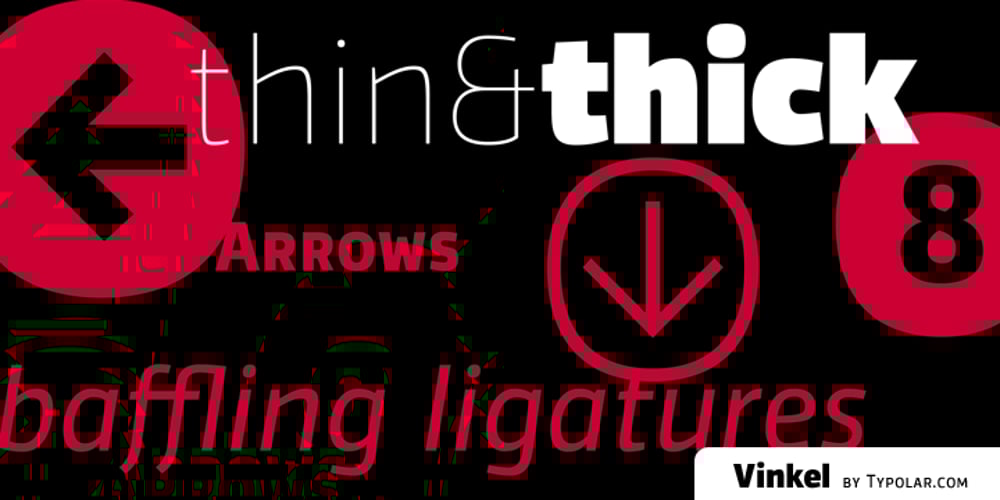
Vinkel Font Family was designed by Saku Heinänen and published by Typolar. Vinkel contains 16 styles and family package options. Composed, clean and slightly angular, as its name says. It’s organic, warm and round in the right places too. A sanserif typeface family Vinkel is a handsome androgyne with an excellent balance of Neo-grotesque and Humanist DNA. Vinkel comes in eight weights from Thin to Extra Black, all with italics, small caps, several sets of numerals, arrows, alternate characters, and more.